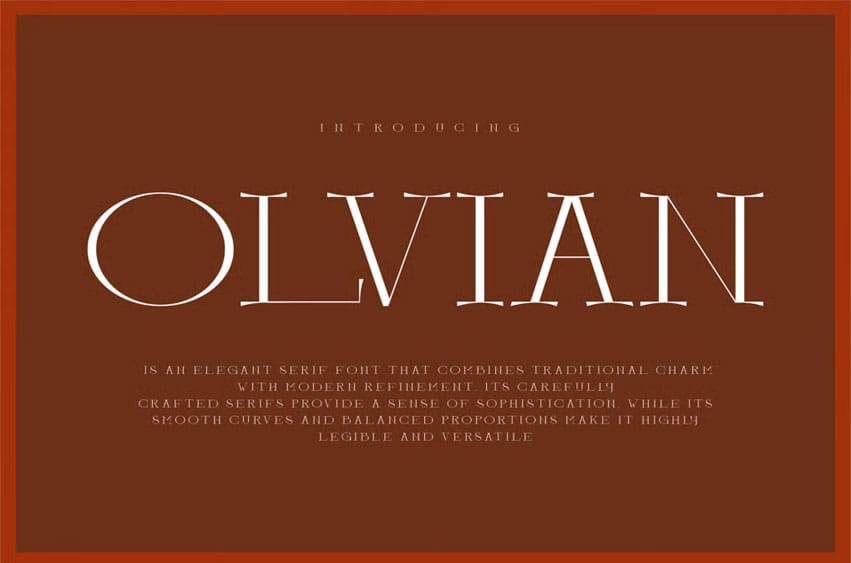
Olvian Font is an elegant serif font that combines traditional charm with modern refinement.
Its carefully crafted serifs provide a sense of sophistication, while its smooth curves and balanced proportions make it highly legible and versatile.